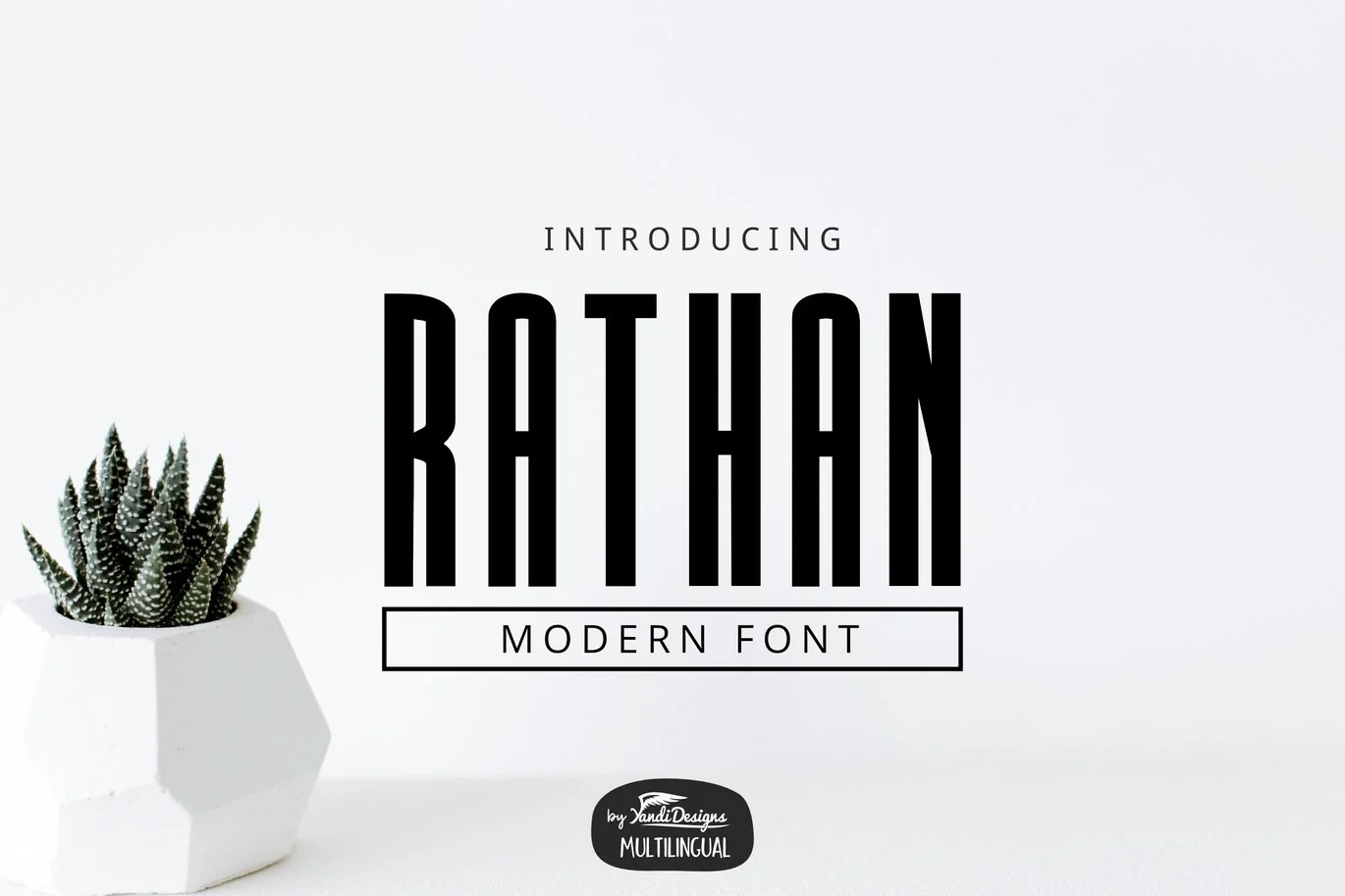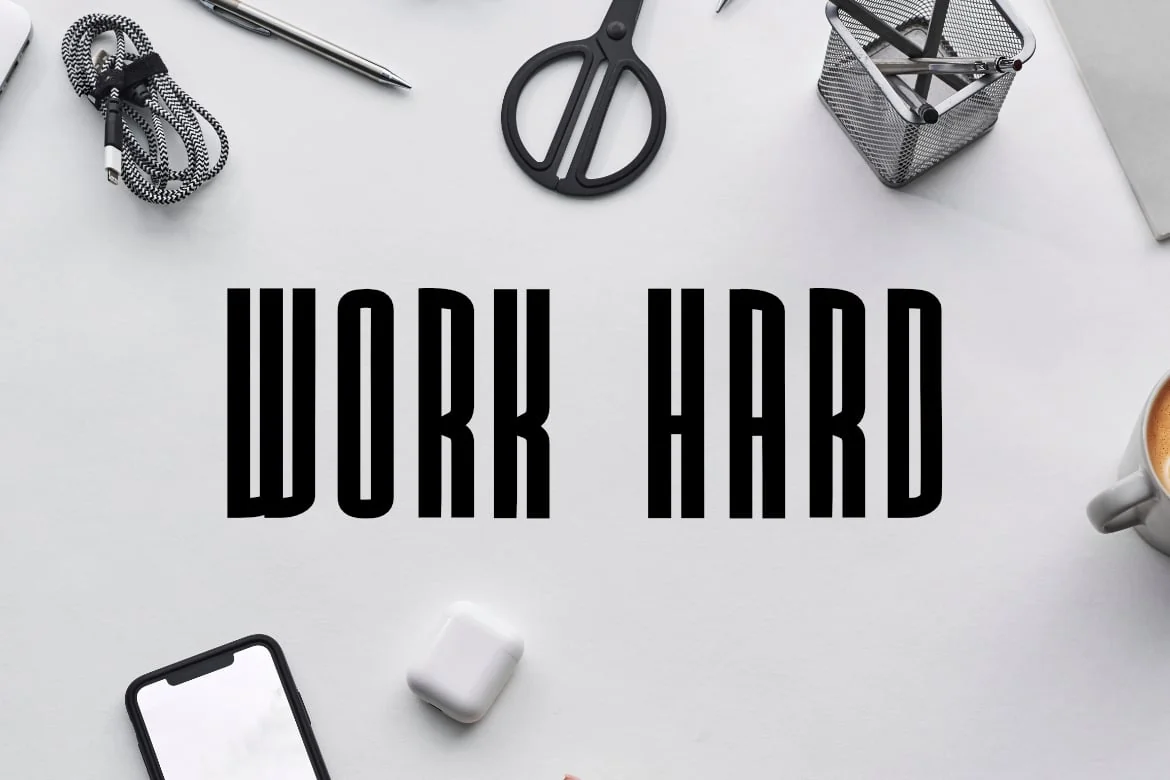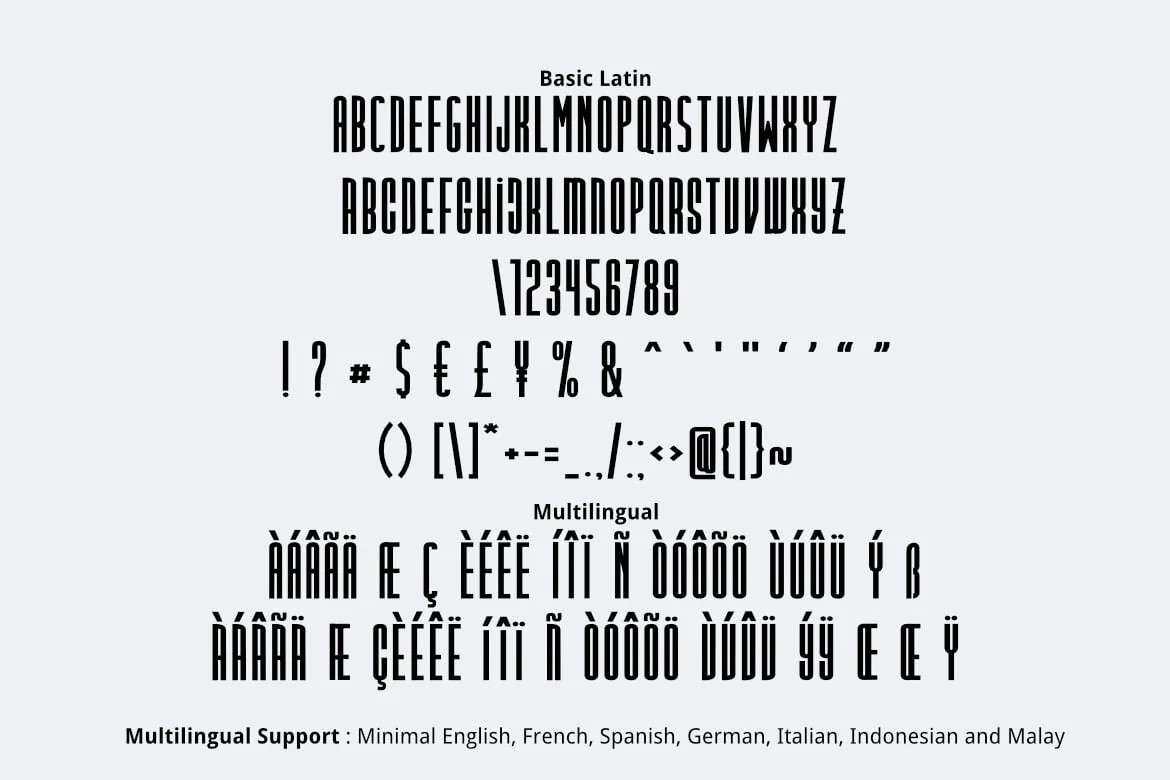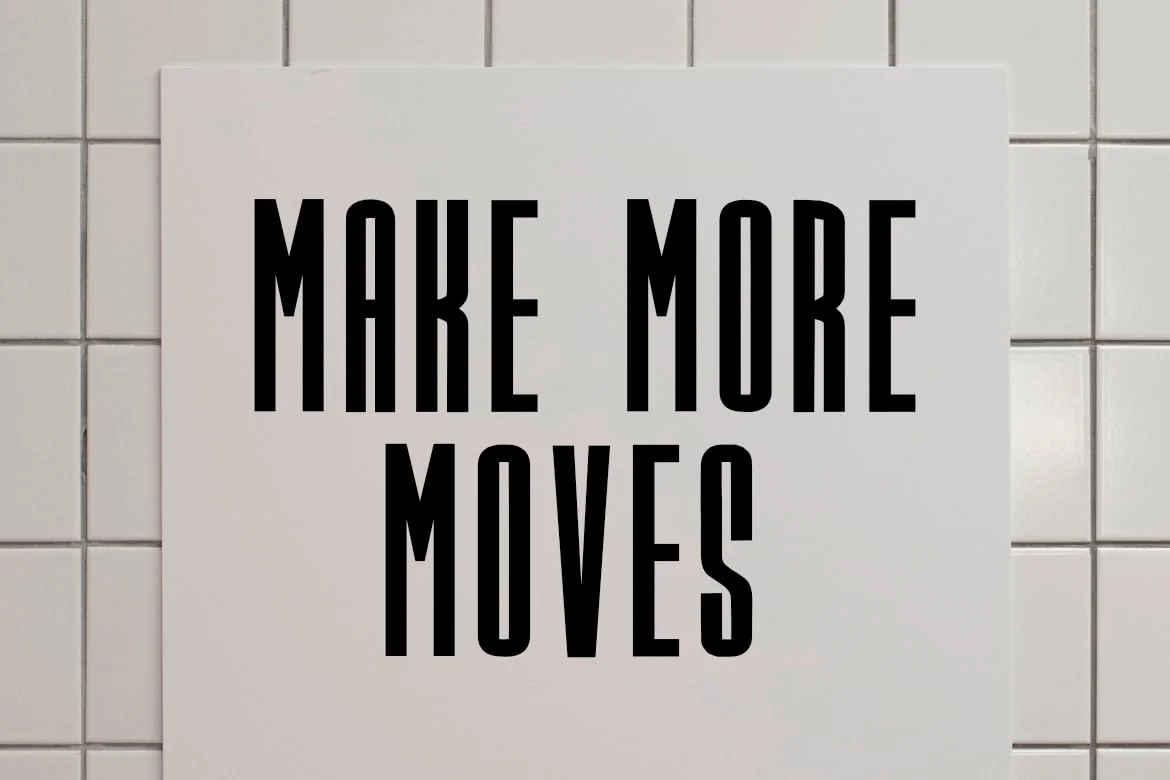
Rathan Modern Font
Rathan Font
Rathan is futuristic and modern multipurpose font, suitable for many project children book, quotes, logo , heading , title etc.
Basic Latin (Standard English character , number, symbol)
Multilingual Support (minimal English, French, Spanish, German, Italian, Indonesian, Malay)